A signature font does something no standard typeface can: it makes a brand feel like it belongs to an actual person. That’s exactly why the 2026 shift favors fast, monoline strokes that read like a confident executive’s autograph rather than the looping, decorative scripts of the past — professional enough for a finance or consultancy brand, personal enough to still feel handwritten.
A default cursive font might look elegant at first glance, but it rarely reads as an actual signature — it looks like decorative type set in italics, not something a person would sign. A genuine signature font needs the natural, slightly imperfect flow of a real hand, with strokes that vary in weight the way an actual pen does.
Twinletter has six signature fonts built around this natural, handwritten aesthetic. Here’s how each one leans:
Sethasso is a clean, simple signature font with a charismatic, natural hand-stroke feel.
Boostnia is a bolder signature font, written with abstract curves that still read as modern and elegant.
Bossthy has a simple, modern theme with a distinctive curve in each letter, giving it a dazzling finish.
Adiystas leans more dramatic, with a cute, modern style and beautifully natural strokes.
Roothinkyu carries a modern, aesthetic flow that works especially well for branding-focused projects.
Soothing is built specifically around personal branding and business-casual use, with a stylish, natural flow.
Across all six, the shared feature set holds:
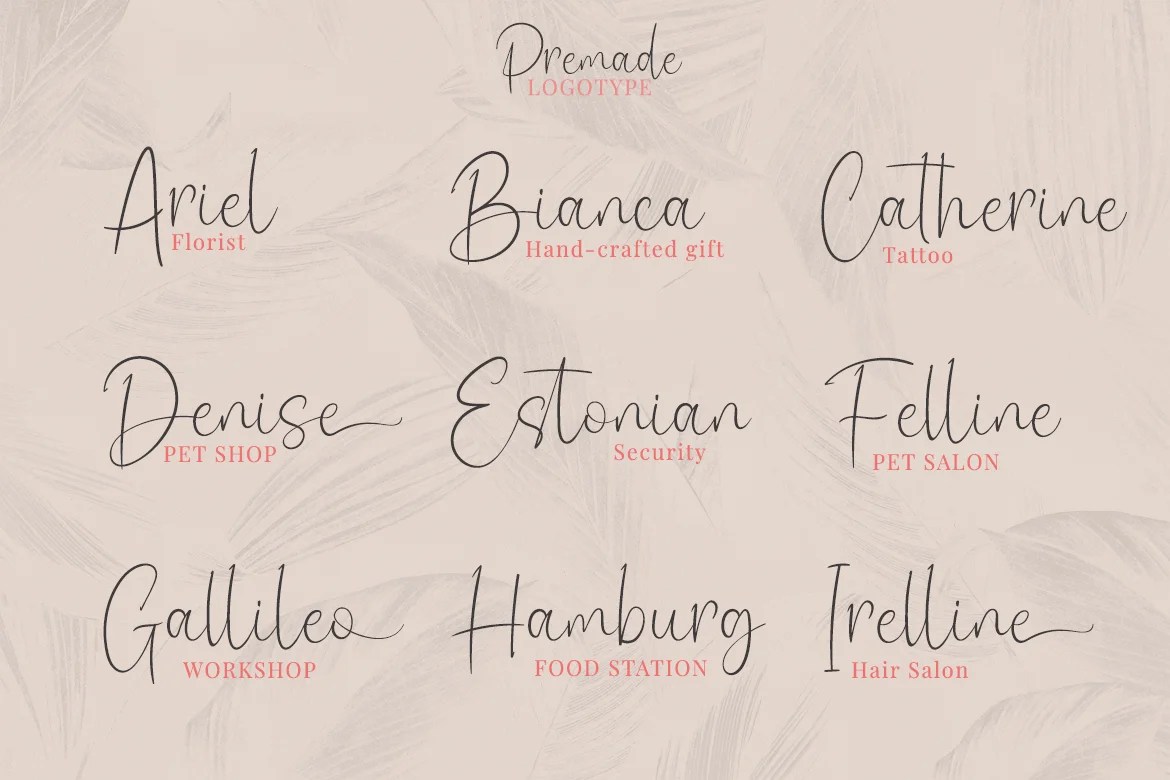
If you want something clean and safely versatile, Sethasso or Roothinkyu are solid starting points. For a bolder, more confident mark, Boostnia and Bossthy carry more weight. If your brand needs real drama, Adiystas is the boldest of the set, while Soothing is purpose-built for personal branding and business-casual identity work. As always, test your actual name or wordmark in each type tester before committing.
What’s the difference between these six signature fonts? They share the same natural, handwritten design language, but vary in weight and drama — Sethasso and Roothinkyu are cleaner and more versatile, Boostnia and Bossthy are bolder, Adiystas is the most dramatic, and Soothing is built specifically for personal and business-casual branding.
What makes a font work well as a signature font rather than a decorative cursive? It needs the natural, slightly imperfect flow of real handwriting, with strokes that vary in weight the way an actual pen does, so it reads as something a person would genuinely sign rather than decorative type set in italics.